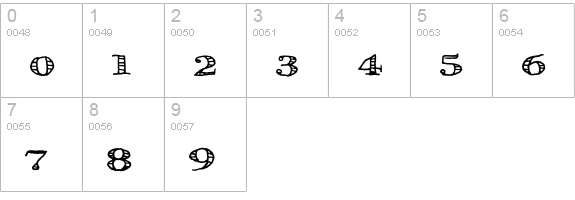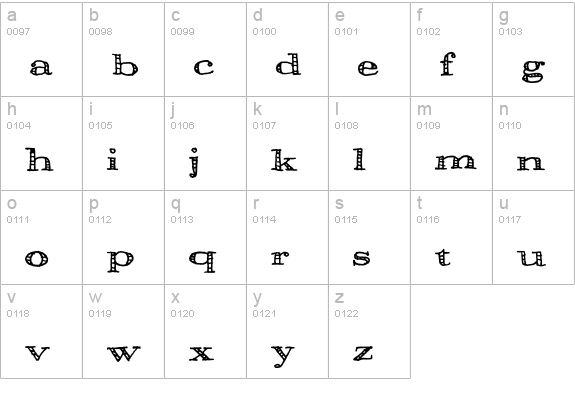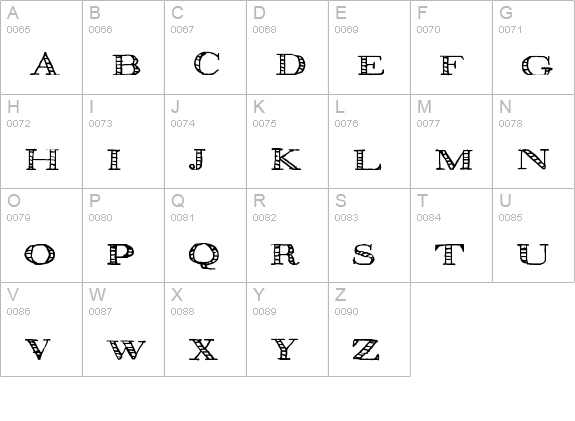
Pesto Font Details
Pesto font is a beautifully crafted typeface that exudes elegance and sophistication. With its sleek lines and stylish curves, this font is perfect for adding a touch of class to any project. The letters are meticulously designed to create a harmonious balance, making Pesto font a versatile choice for both headings and body text. What sets Pesto font apart is not just its stunning design, but also the fact that it is available for free. Yes, you read that right – this remarkable font can be freely downloaded at FontsMarket.com. Whether you're a professional designer looking to enhance your portfolio or a casual user seeking to add a touch of creativity to your personal projects, Pesto font is the ideal solution. With its wide range of weights and styles, Pesto font offers endless possibilities for customization. From light and airy fonts for a delicate touch to bold and impactful styles for a strong statement, this font has it all. Its versatility makes it suitable for a variety of applications, including branding, packaging, advertising, and more. Furthermore, Pesto font is not only visually appealing but also highly legible. Each letter is carefully crafted to ensure maximum readability, allowing your message to shine through effortlessly. Whether you're designing a logo or creating a poster, Pesto font will ensure that your text stands out and grabs the attention of your audience. In addition to its stunning design and readability, Pesto font also boasts extensive language support, making it suitable for use in various regions around the world. So, no matter where your target audience is located, you can rest assured that Pesto font will effectively communicate your message. So why wait? Download Pesto font now from FontsMarket.com and experience the beauty and versatility of this incredible typeface. Whether you're a professional designer or a creative enthusiast, Pesto font will elevate your projects to new heights. Don't miss out on this amazing opportunity to enhance your design arsenal with a high-quality, freely available font.